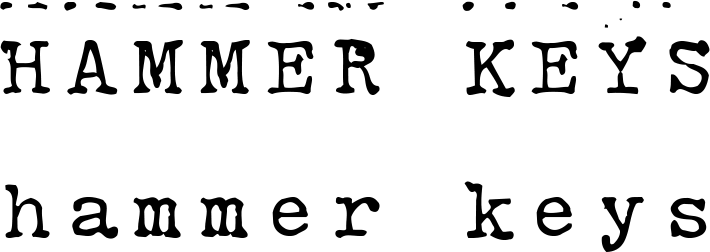
Hammer Keys Font
Hammer Keys is a high-quality typewriter font that will overtake your typography with its grunge and unique design. This font is designed so old and stained that it can give a classic and old-fashioned feel to your writi…
Hammer Keys is a high-quality typewriter font that will overtake your typography with its grunge and unique design. This font is designed so old and stained that it can give a classic and old-fashioned feel to your writing style and distinguish it. Luckily, reaches all letters to design any headers, movie titles, posters, flyers, and anything else to catch sight of others.